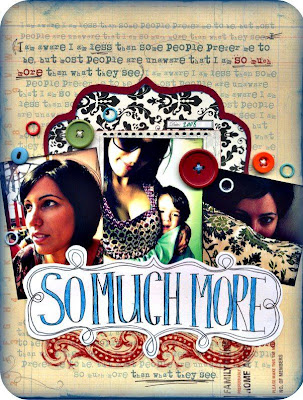
For our third guest designer I introduce to you, the ever so talented Zina. This chick does it all, and looking at her stuff makes me want to take out my supplies and just stop being so damn lazy lately. I guess that is always the case when I stumble upon highly artistic people. Be sure to check out her blog, its bursting with all kinds of good stuff, seriously.
*click on the image above to read a little something about who she is, and why type is important to her.Use a quote as your background...........................Zina you rocked this!
The colors, the lettering, the images.............................................she is the poster child of our Use a quote as a background prompt.